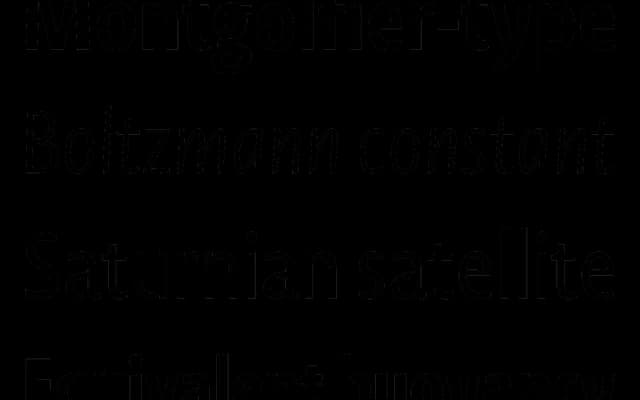
Novel Sans Condensed
A condensed humanist sans from Atlas Fonts, designed for compact settings whilst retaining the warmth of the Novel Sans family.
Novel Sans Condensed is the narrow-width variant of Atlas Fonts' Novel Sans family, bringing the humanist character of the parent face into a compressed format suited to tight columns, headlines and space-constrained layouts. The condensed proportions preserve legibility without sacrificing the calligraphic subtlety that defines the wider cuts. It sits comfortably in editorial, publishing and identity contexts where space economy is a priority.
The condensed cut of Novel Sans follows the humanist sans tradition established by the broader Novel Sans family, combining calligraphic warmth with a compressed width suited to tight settings.